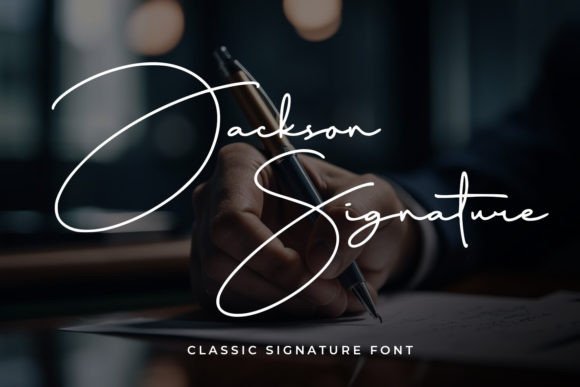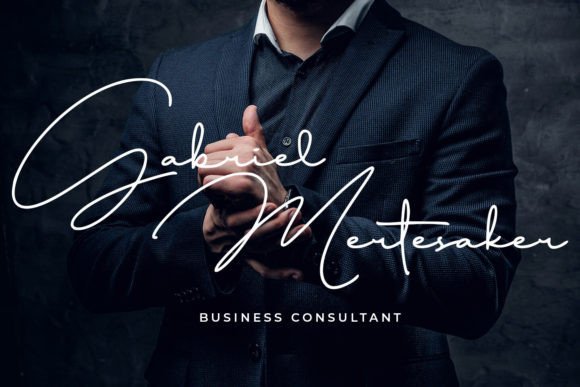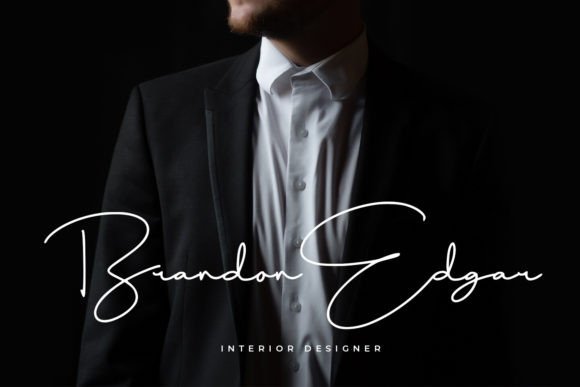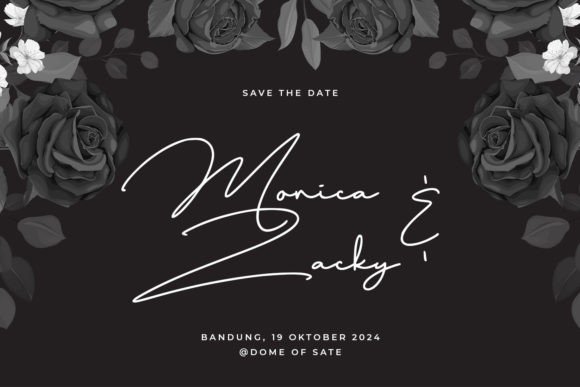
Jackson Signature Font
About the Jackson Signature Font
Explore the possibilities with Jackson Signature Font, a font that offers both beauty and functionality. JACKSON SIGNATURE
– classic signature font-
JACKSON SIGNATURE is a beautiful monoline signature font.
It is great for branding, quotes, logotypes, t-shirt designs, tote bag designs, cards, banners, social media, and more.
Its elegant, slightly playful personality makes it ideal for branding projects requiring a touch of sophistication, particularly logos, short headlines, and social media graphics. It also works well on packaging for high-end or boutique products. However, its monoline weight and limited character set make it unsuitable for body text or lengthy content. Avoid using it in UI contexts where readability is paramount.
Pairing Jackson Signature with a clean sans-serif like Montserrat for body copy provides excellent contrast and readability. For a more vintage feel, consider pairing it with a serif like Playfair Display. A geometric sans-serif like Futura can add a modern edge if a bolder, more contemporary feel is desired.
The font’s overall aesthetic leans towards a classic yet approachable elegance, making it a versatile choice for brands that prioritize subtle sophistication and timeless appeal.
Jackson Signature Font Usage Examples
Jackson Signature Font Example